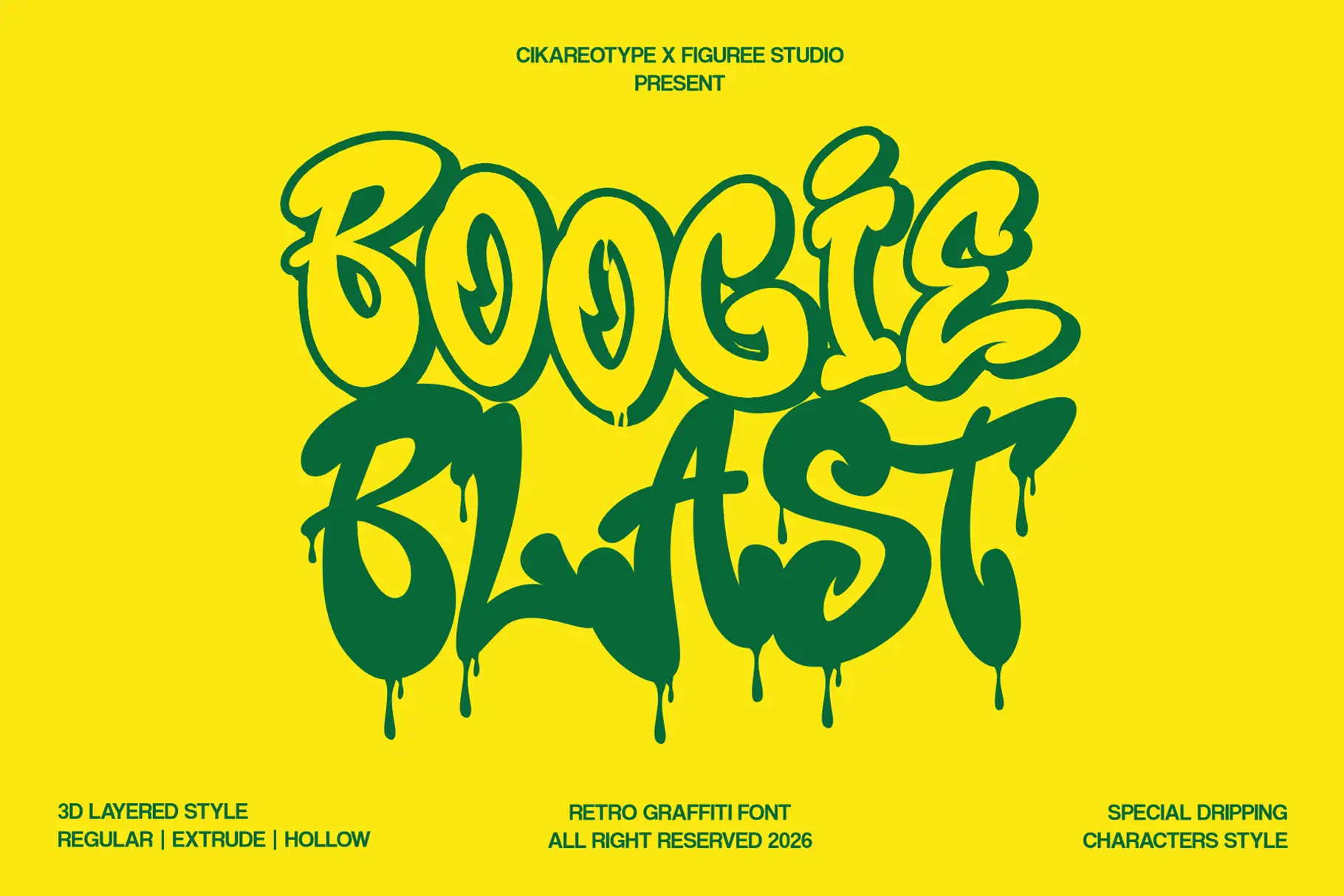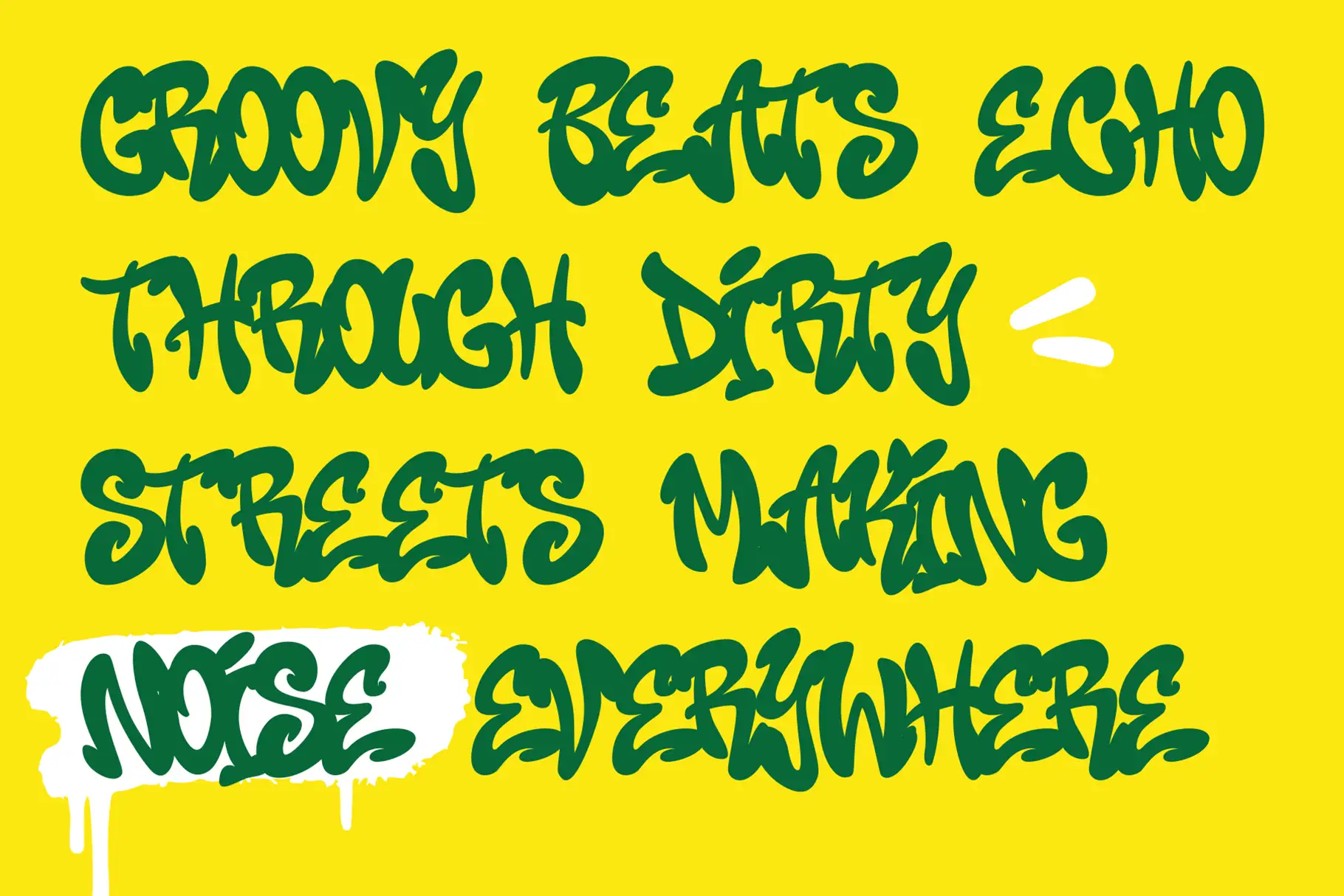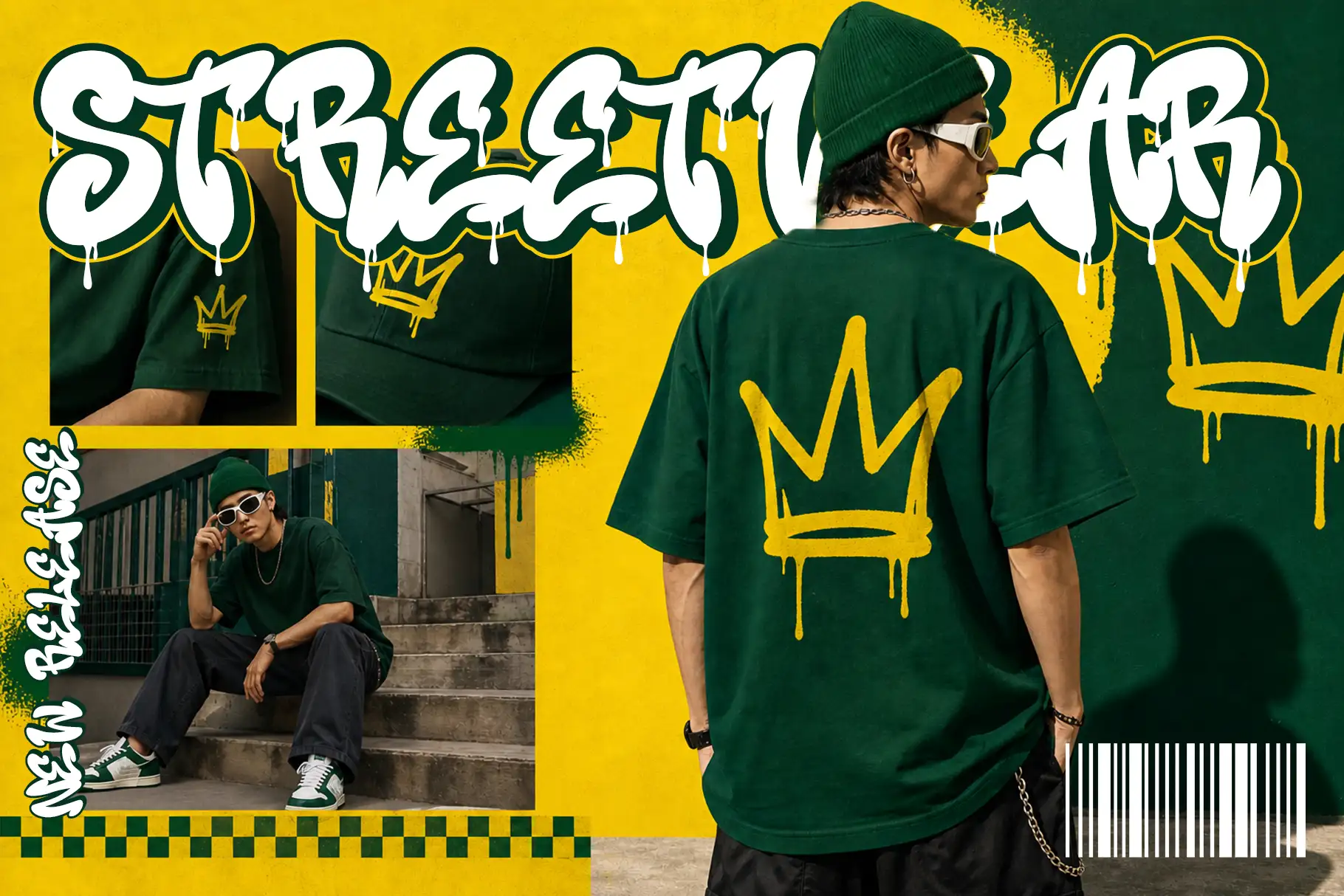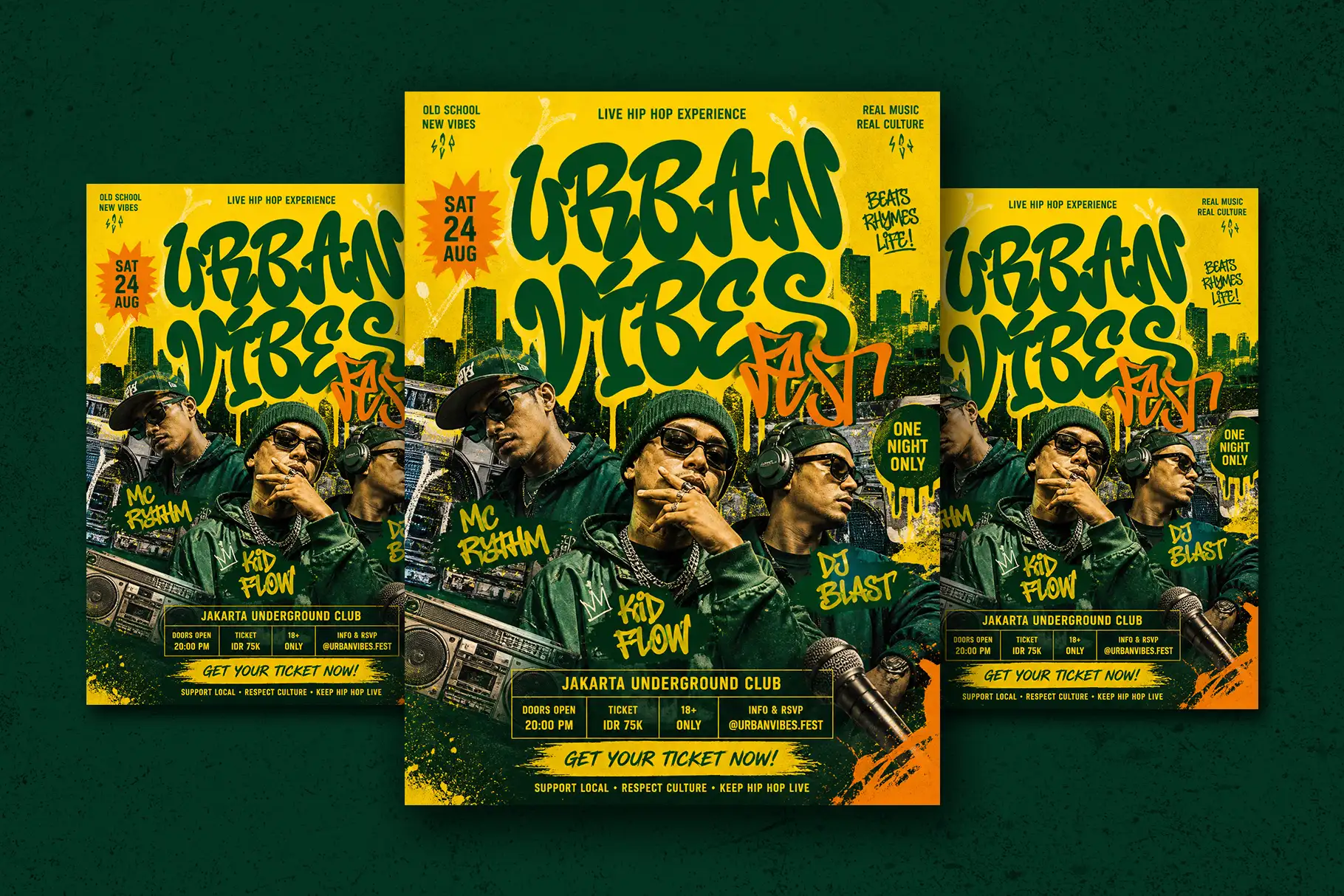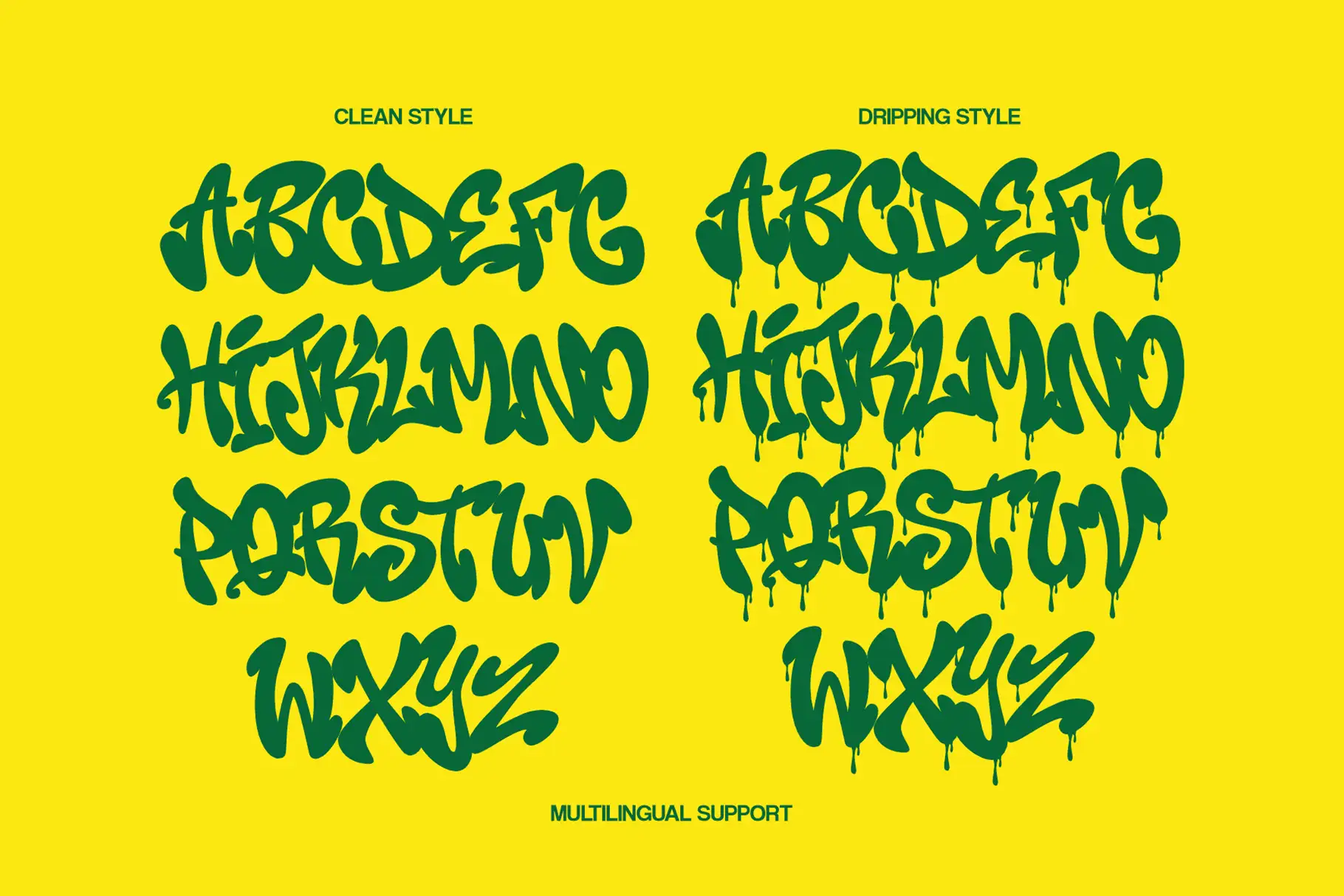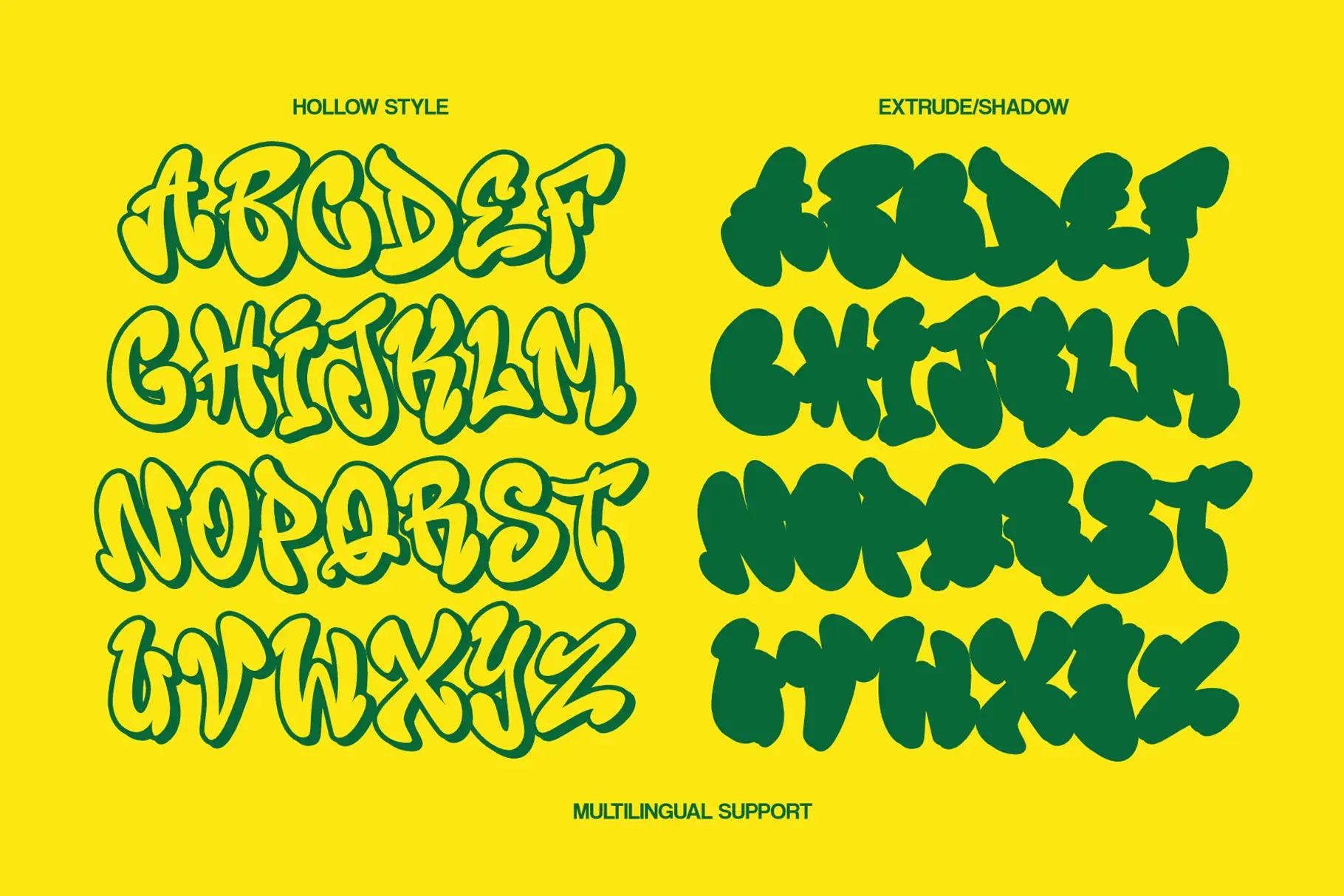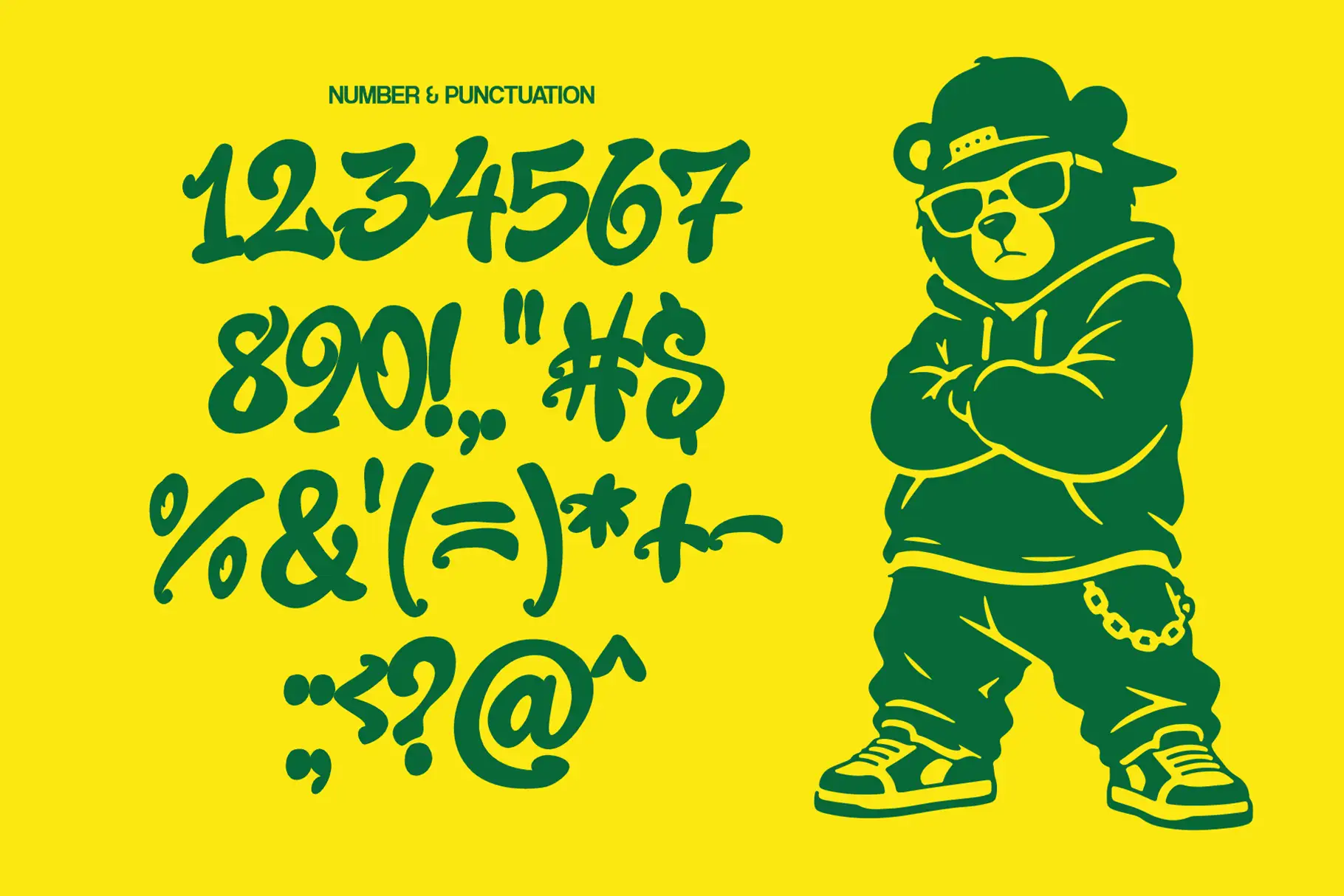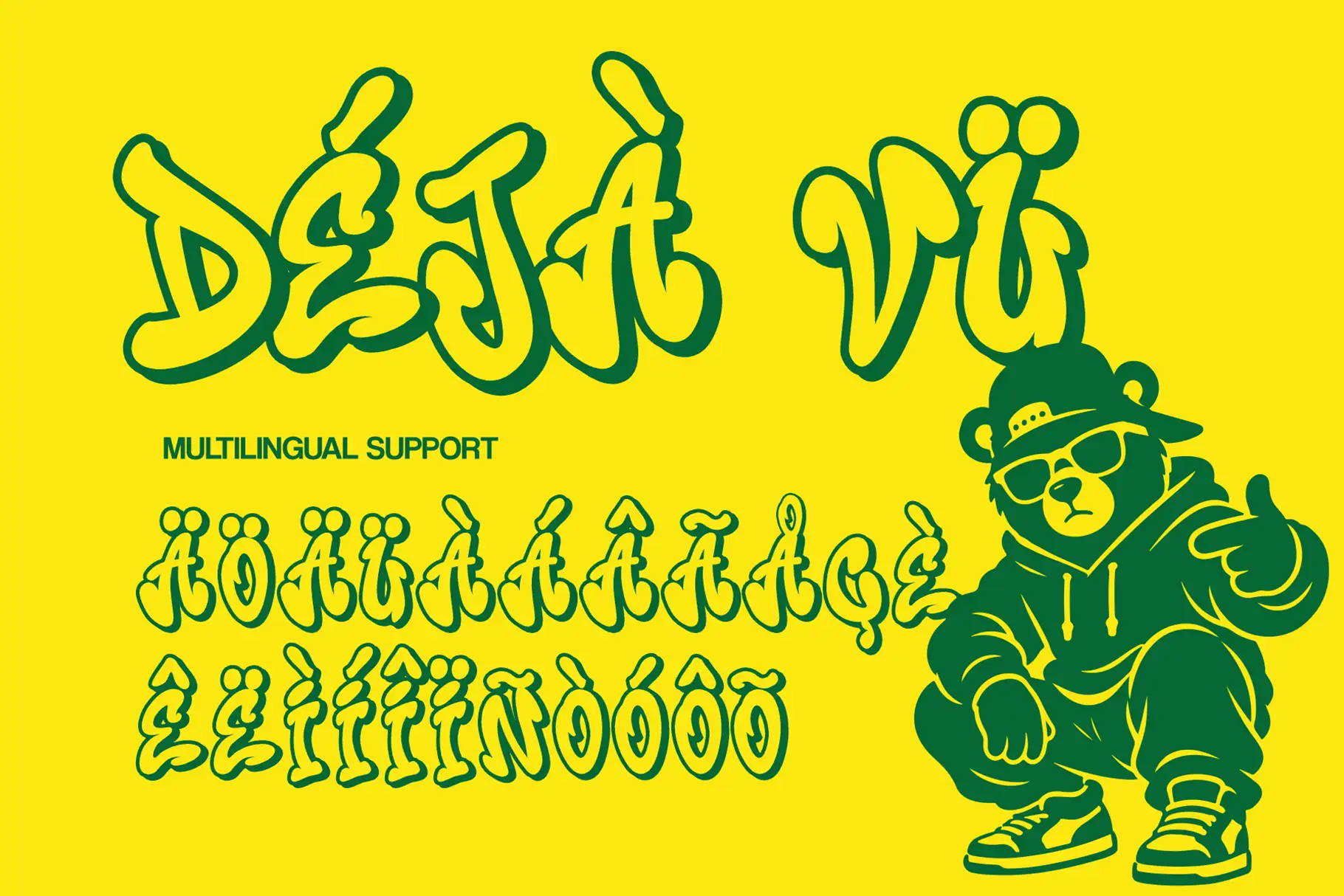
Boogie Blast – Retro 3D Graffiti Font for Bold Visual Impact
Boogie Blast is a retro 3D graffiti font built for designs that need loud personality, bold structure, and instant attention. Inspired by the visual energy of graffiti lettering, retro display type, and dimensional street-style graphics, this font is made for posters, gaming titles, flyers, thumbnails, and standout display text.
This is the kind of font that does not sit quietly in the background. Boogie Blast works best when the words need to become the main graphic element. Whether you are creating a YouTube thumbnail, an event poster, a game-inspired title, a streetwear graphic, or a bold promotional flyer, its retro 3D graffiti look gives your typography a strong visual presence from the first glance.
For designers who need type that feels expressive, playful, urban, and commercially useful, Boogie Blast brings a flexible visual system through its included styles: regular, hollow / outline, extrude, and drip. These styles allow you to build layered-looking compositions, create punchy title treatments, and explore different levels of visual drama without moving away from the same font family.
Boogie Blast has a bold graffiti-inspired personality with a retro 3D attitude. Its display-focused look makes it especially useful for headline typography, cover graphics, social media visuals, and high-energy promotional design.
The regular style gives you a strong base for impactful words and short phrases. The hollow / outline style adds a lighter graphic option that works well for layered compositions, poster layouts, and title variations. The extrude style helps create a dimensional look, while the drip style brings a more expressive street-art feel for designs that need extra movement and attitude.
Because the font is made for bold display text, Boogie Blast is best used in larger sizes where the shape, volume, and personality of the lettering can be fully seen. It is ideal for short words, names, titles, slogans, and graphic typography rather than long body copy.
Its mood is energetic, urban, retro, playful, and visually loud. It feels right for creative projects that need to stand out quickly, especially in busy digital spaces where a strong first impression matters.
Best Use Cases for Retro 3D Graffiti Font
Boogie Blast is a practical choice for designers, creators, and brand owners working on bold visual projects. It can support many design directions, especially when the concept needs movement, confidence, and a street-style edge.
Use Boogie Blast for poster headlines, music event flyers, gaming titles, esports-inspired graphics, YouTube thumbnails, TikTok covers, Instagram carousel titles, digital ads, merchandise graphics, apparel prints, stickers, album-style artwork, urban branding, and creative display text.
For gaming and content creator projects, Boogie Blast can help titles feel more dynamic and clickable. For posters and flyers, it gives the main message a strong central focus. For streetwear and merchandise, its graffiti personality adds a bold visual identity that feels expressive and youth-driven.
It is also a strong option for bold quote graphics, motivational posters, creative wall art, and social content where the typography needs to carry the mood of the design.
Key Features
- Retro 3D graffiti font style for bold display typography
- Designed for posters, gaming titles, flyers, thumbnails, and strong headline text
- Includes regular Boogie Blast style
- Includes Boogie Blast Hollow / Outline style
- Includes Boogie Blast Extrude style
- Includes Boogie Blast Drip style
- Useful for urban visuals, street-style graphics, creator content, and bold promotional layouts
Designers love fonts that can do more than simply place text on a canvas. Boogie Blast gives your words visual weight, rhythm, and character. It helps transform simple wording into a graphic headline, making it useful for projects where typography needs to become the hero of the layout.
The included styles make it easier to create variety inside one visual direction. You can use the regular style for clean impact, the hollow / outline style for a lighter graphic treatment, the extrude style when you want dimension, and the drip style when the design needs a stronger graffiti-inspired attitude.
This makes Boogie Blast especially helpful for designers creating campaign assets, content graphics, and product visuals that need several variations. A thumbnail may need one treatment, a poster may need another, and a merchandise mockup may need a more expressive version. With Boogie Blast, the styles stay connected while giving you room to build different moods.
For brand owners and content creators, Boogie Blast offers a memorable look that can help titles, announcements, and promotional visuals feel more distinctive. For creative studios, it is a practical display font for fast-moving projects that need immediate personality.
Boogie Blast is made for designers who want bold words, strong visual character, and a retro graffiti style that feels ready for posters, gaming graphics, flyers, thumbnails, and standout display typography. Add it to your font collection when your project needs type that feels loud, dimensional, urban, and impossible to ignore.